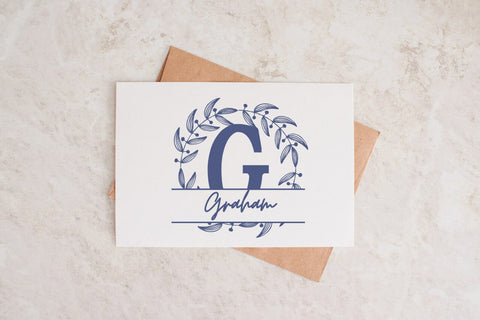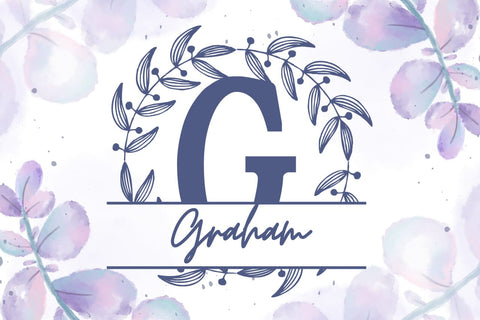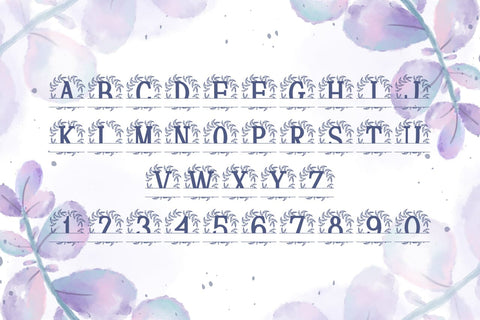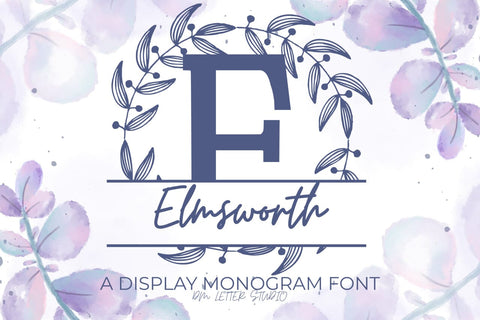
Elmsworth Split Monogram Font
Meet Elmsworth Split Monogram Font
Elmsworth Split Monogram Font turns any initial into a refined, name-ready emblem in seconds. Clean, balanced letterforms project quiet elegance, while a precise horizontal split creates natural space for names, dates, or short words. Because spacing stays even and counters remain open, designs look polished on tiny tags, door hangers, tumblers, ornaments, menus, and wall art. Pair it with a simple sans or a light script and every layout stays readable and premium.
Where this split monogram font shines
Set a single hero initial, then place the family name inside the split for instant personalization. Try couple names for keepsakes, venue names for signage, or short words like Home, Welcome, and Love for seasonal décor. Since proportions favor clarity, files scale smoothly for Cricut, Silhouette, Glowforge, and laser projects. As a result, you can batch customization for markets and storefronts without losing quality.
Design tips for Elmsworth Split Monogram
Keep the hero initial large and let white space breathe. Place the split at center or slightly low for a calm baseline. Choose a clean secondary font inside the split to protect legibility on small items. Because the style is poised and airy, metallic foils, textured stocks, and natural woods add instant value. Keep names concise so the composition stays balanced and reads clearly at thumbnail size.
Why makers choose this split monogram font
You want fast personalization that still feels bespoke. Elmsworth Split Monogram Font delivers consistent, high-end name designs in minutes while keeping your shop’s visual language cohesive across many product types.